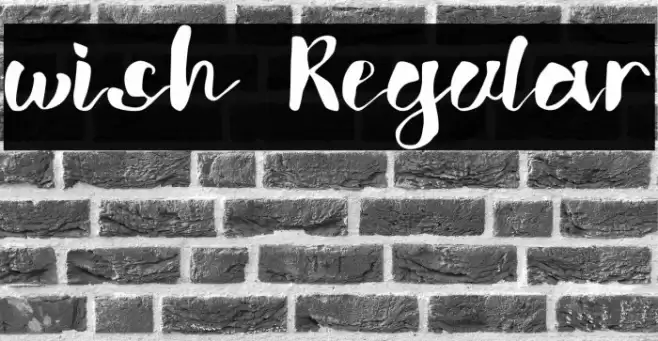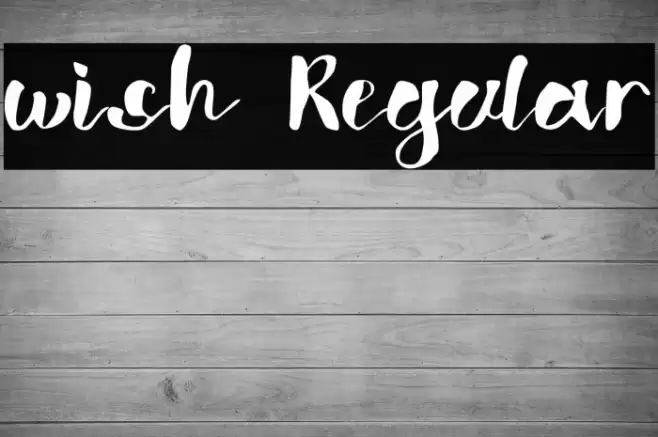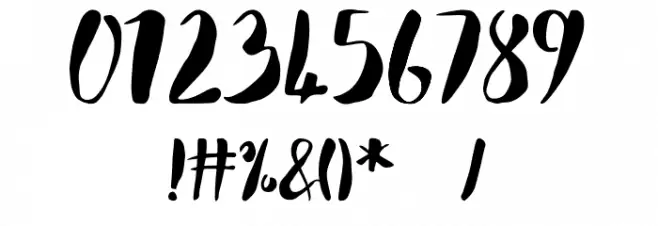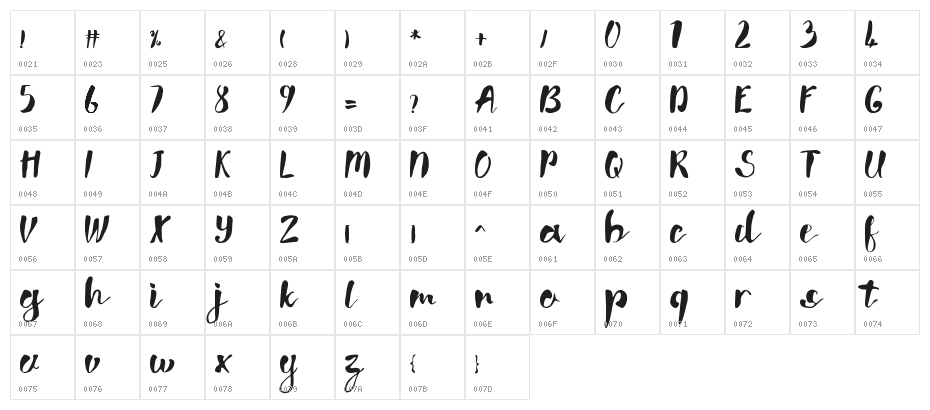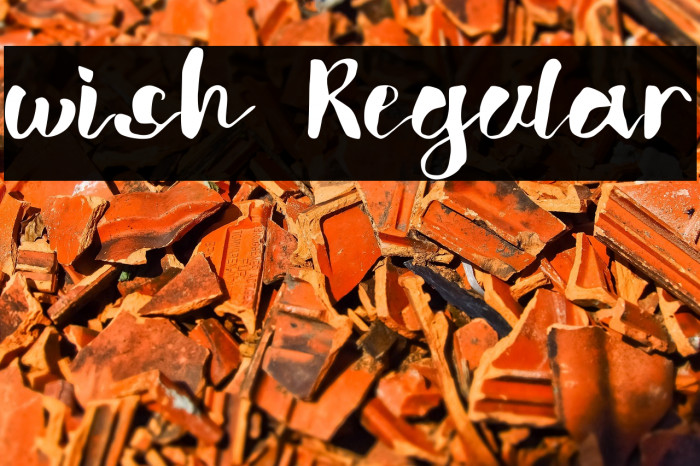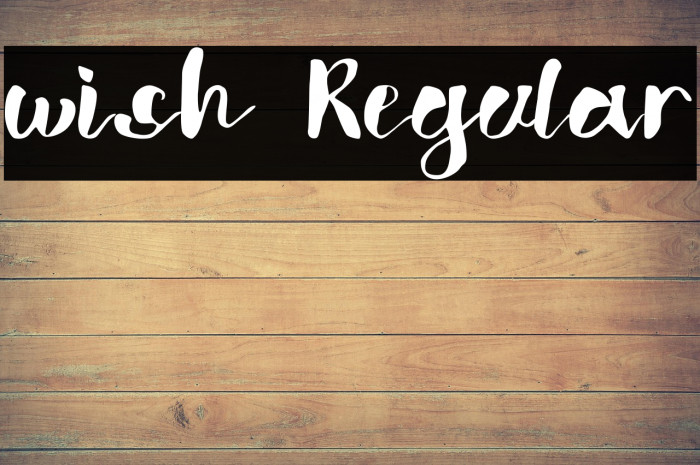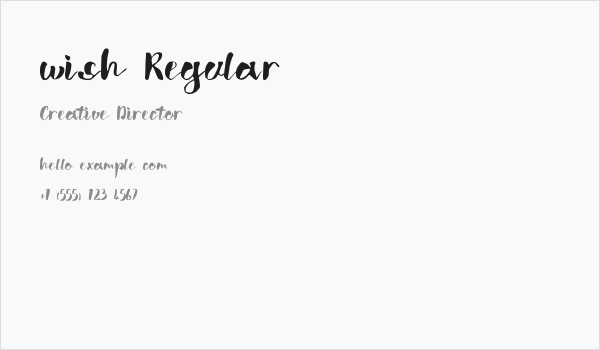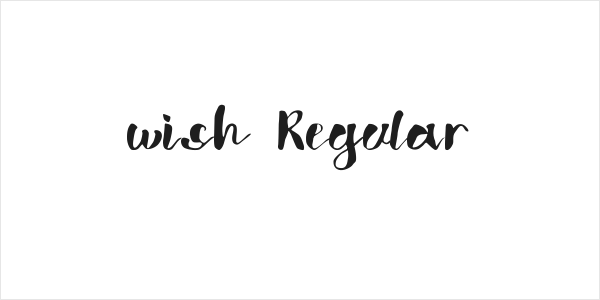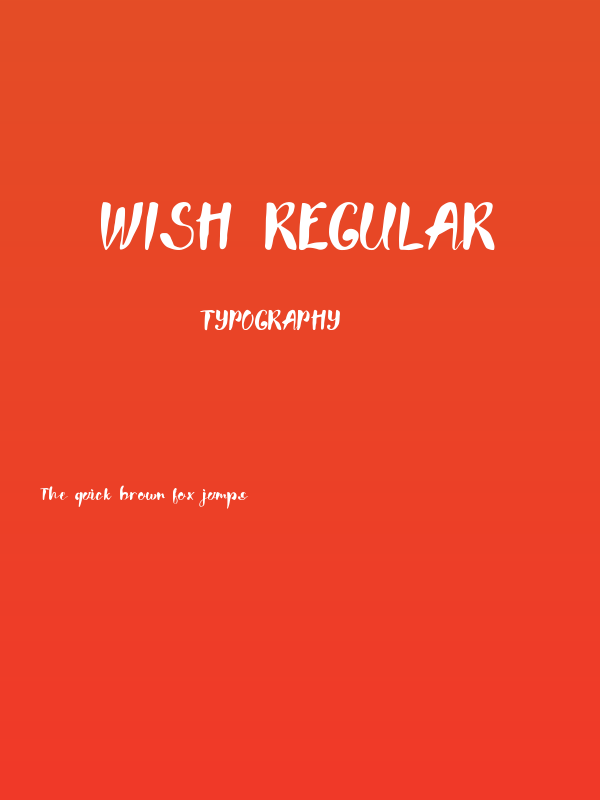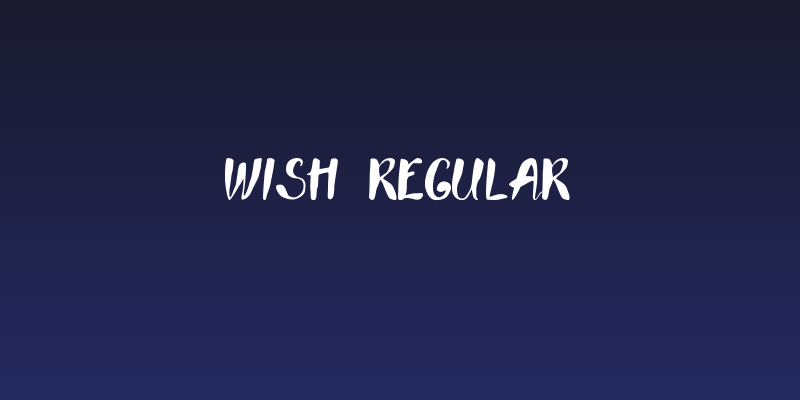
wish Regular Font
wish Regular Description
This font features a bold and expressive style with a handwritten appearance. The letters are fluid and dynamic, showcasing a playful yet elegant character. The uppercase letters are bold and slightly condensed, while the lowercase letters maintain a consistent flow with distinctive loops and curves. The numbers are equally bold, maintaining the overall aesthetic of the font. Special characters are creatively designed to match the font's lively style. This font is perfect for projects that require a personal touch, such as invitations, greeting cards, or branding materials.
A bold, handwritten-style font with expressive and fluid characters from Regular fonts.
- Proposed Projects: Ideal for invitations, greeting cards, branding, and creative projects requiring a personal touch.
- Use Case: Logos, Headlines, Creative projects